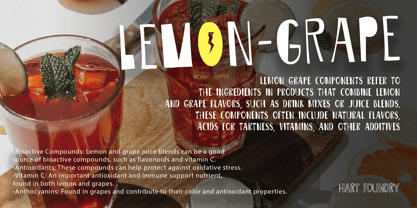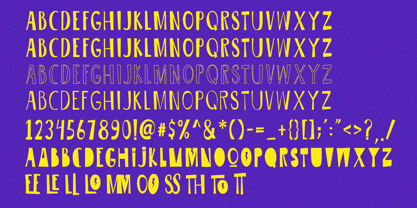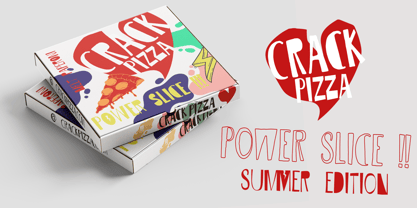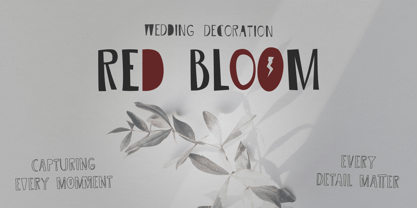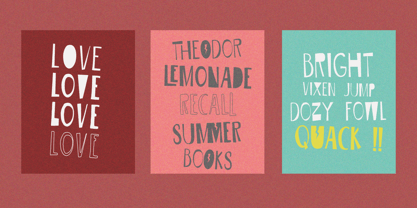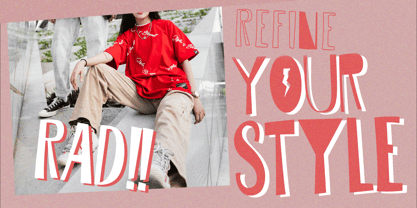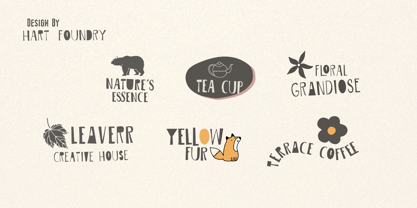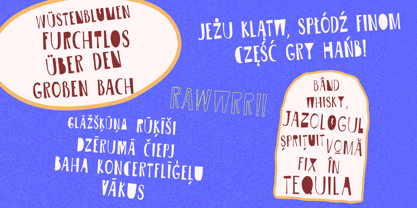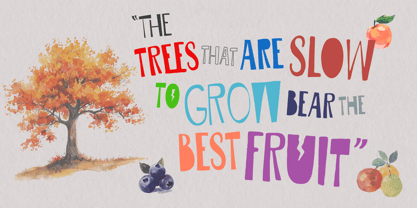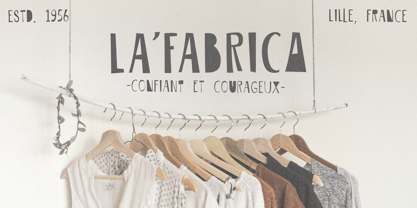
Saymour
by Hart Foundry
The Saymour Font Family was designed by Muhammad Ardiansyah and published by Hart Foundry. Saymour contains 4 styles and family package options. More about this family
New Font fron Hart Foundry, Saymour Family font, contains of 4 font,
With the feel raw in the font that make you fell messy but still in the digital looks, This font are suitable for printing, ads, some apparels food header or you can find something different when you use this font,
• Saymour Rough
• Saymour Regular
• Saymour Outline
• Saymour Thin
All the font are contain some Alternate and Ligature, and all the font are support for multilanguage,